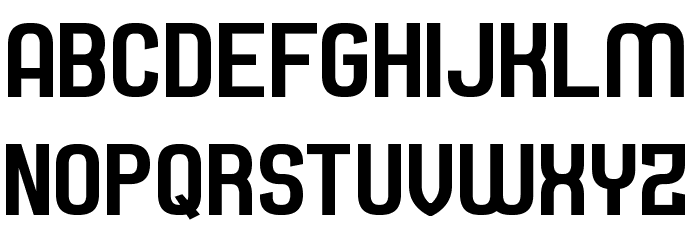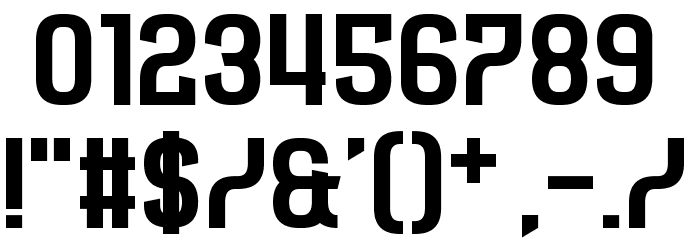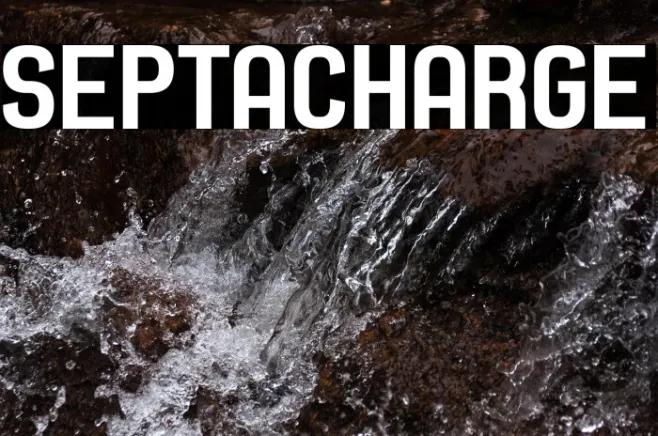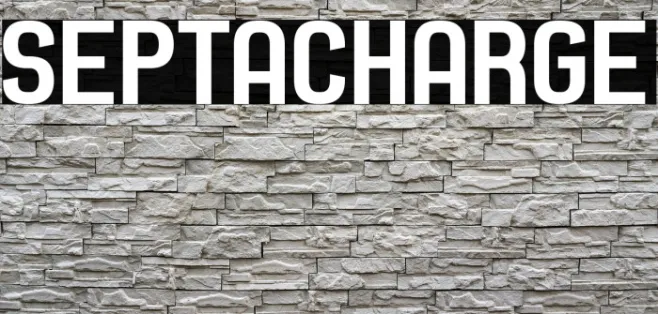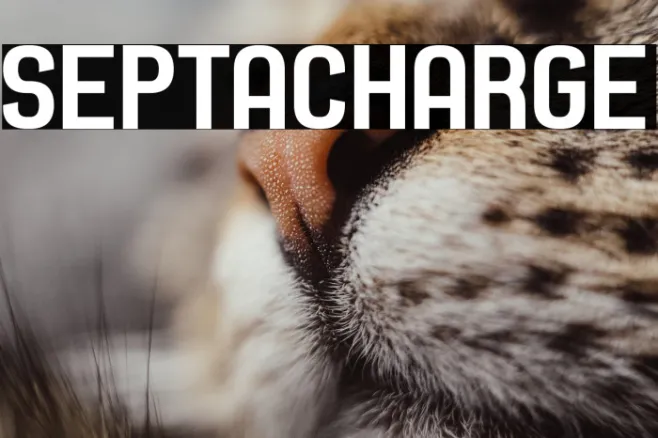
Septacharge Font
This font features a bold and modern design with a strong geometric structure. The characters are uniformly thick, providing a sense of stability and strength. The uppercase letters are particularly striking, with a consistent height and width that create a harmonious appearance. The lowercase letters maintain the same boldness, ensuring readability and visual impact. The numbers are clear and distinct, making them suitable for various applications. Special characters are designed with the same attention to detail, ensuring they fit seamlessly with the rest of the typeface. Overall, this font is versatile and can be used in a variety of design projects.
A bold, modern font with a geometric and uniform design.
- Proposed Projects: Ideal for branding, advertising, posters, and digital media where a strong visual presence is needed.